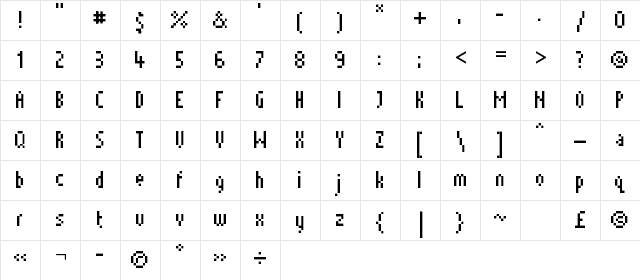
Munro Narrow Regular Font Preview
Munro Narrow Regular
Munro Narrow Regular Font Details
| Foundry | Ten by Twenty |
| Designer | Ed Merritt |
Design Context for Munro Narrow Typeface
Munro Narrow takes a measured approach to typography — its balanced proportions and neutral character make it a reliable workhorse for both digital and print work. The condensed width makes it efficient for tight spaces without sacrificing legibility.